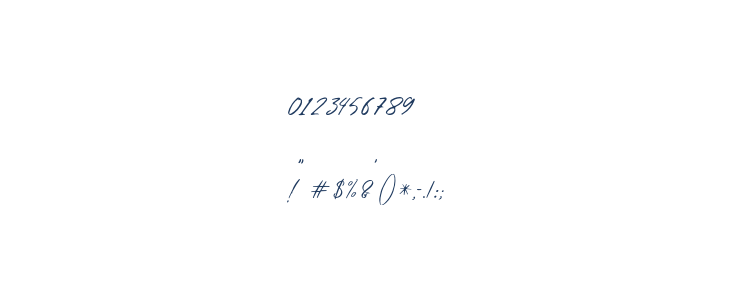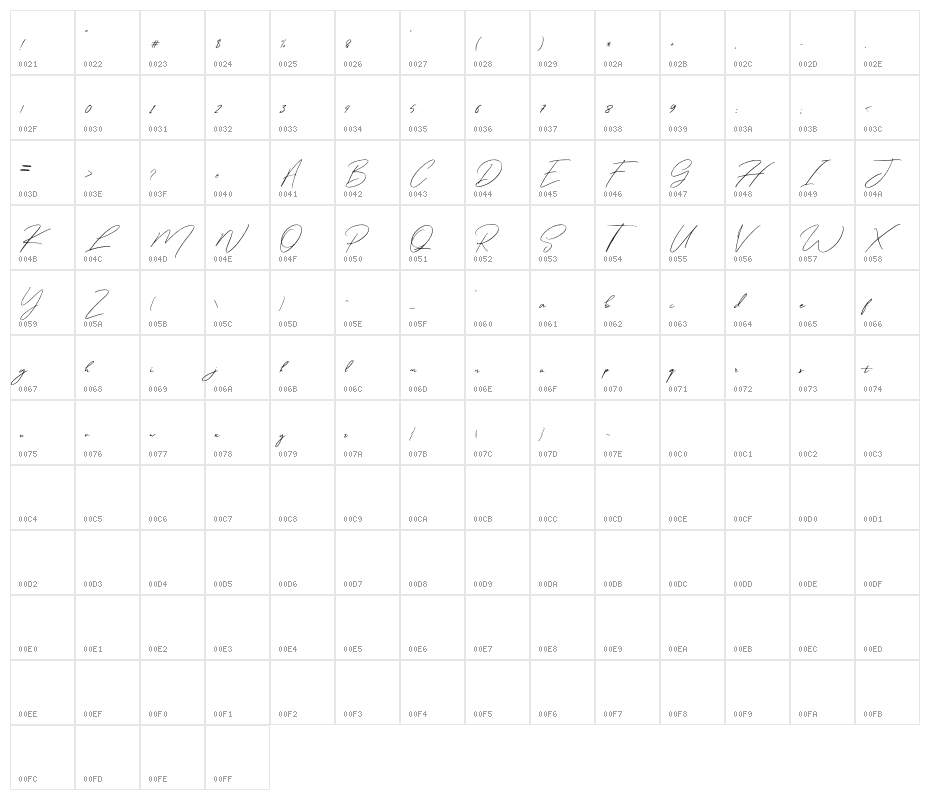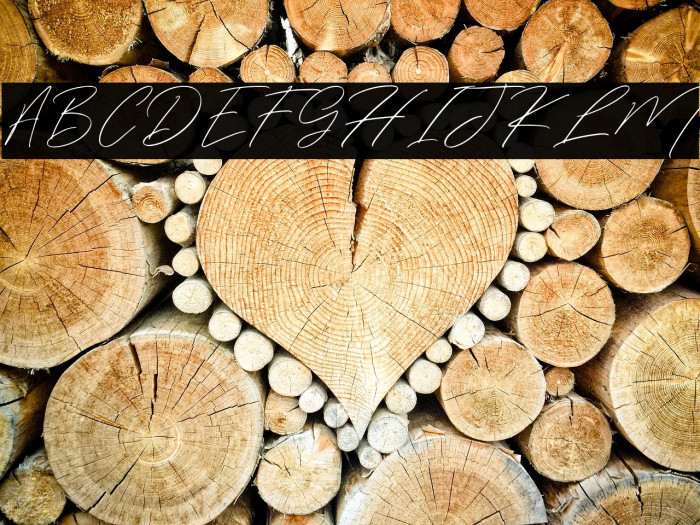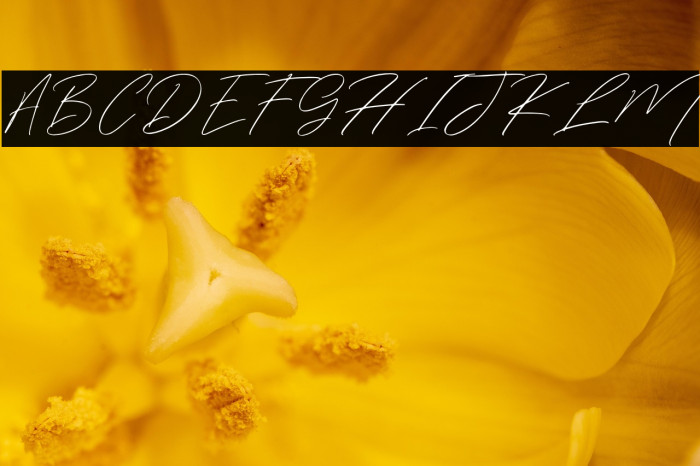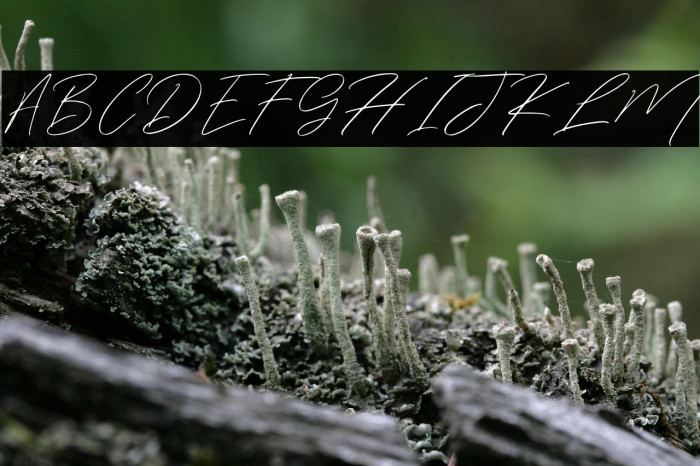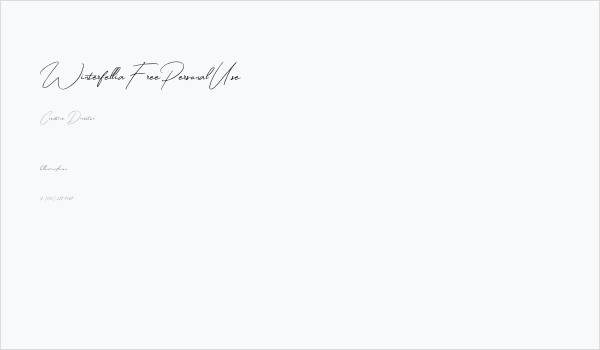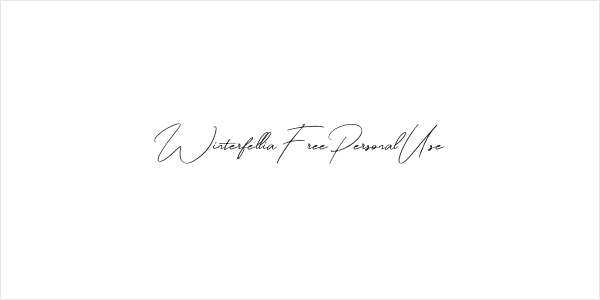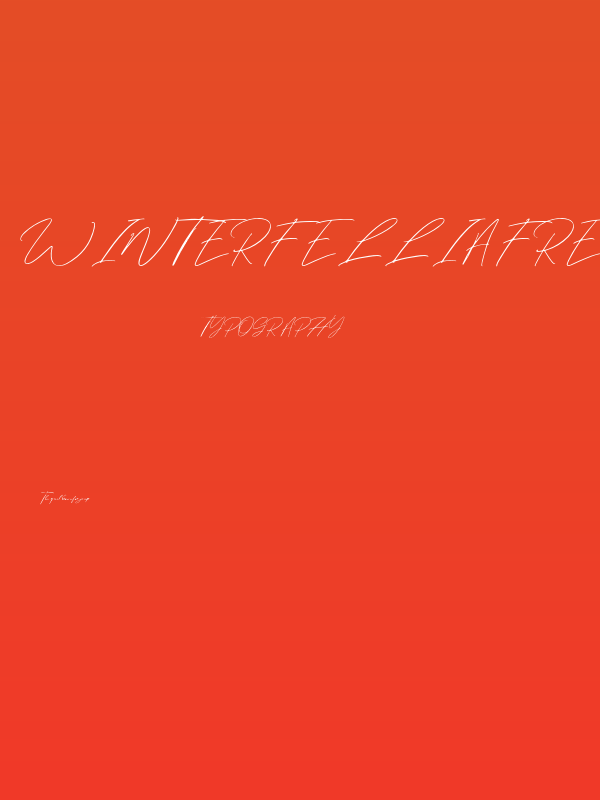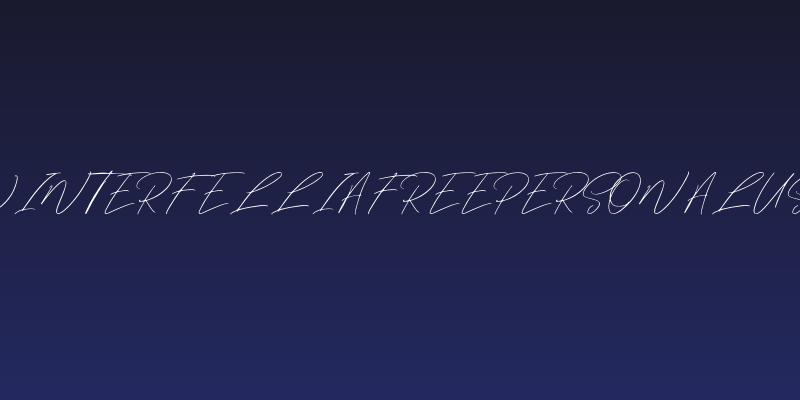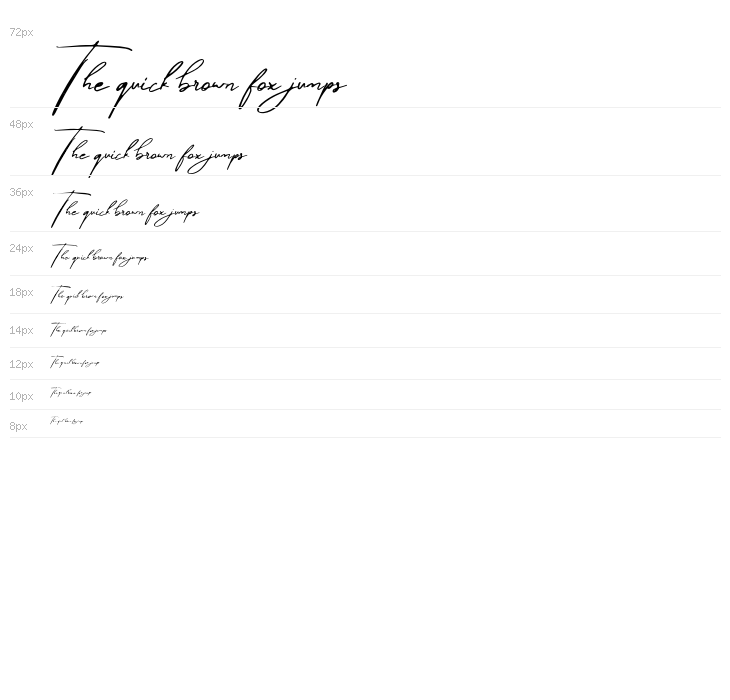
WinterfelliaFreePersonalUse Font
WinterfelliaFreePersonalUse Description
This elegant script font features a flowing, cursive style with delicate, thin strokes that give it a graceful and sophisticated appearance. The characters are connected, creating a seamless and fluid look, reminiscent of traditional calligraphy. The uppercase letters are slightly more ornate, with subtle flourishes that add a touch of flair, while the lowercase letters maintain a consistent and harmonious flow. The numerals and special characters are designed to complement the overall aesthetic, ensuring a cohesive look across all text. This font is perfect for adding a personal and artistic touch to any project.
| Proposed Projects | Ideal for wedding invitations, elegant branding, personal stationery, and artistic projects. |